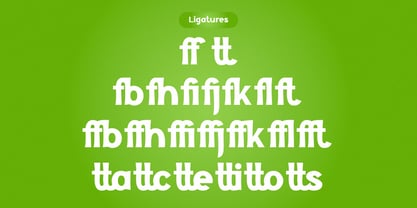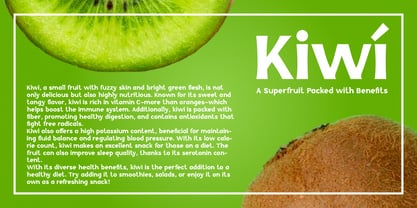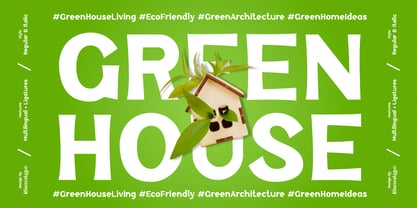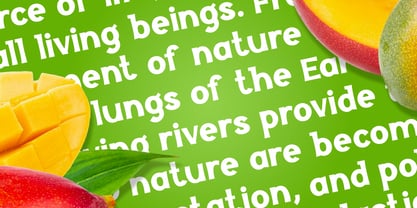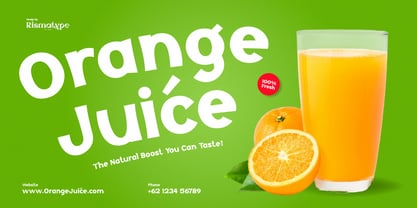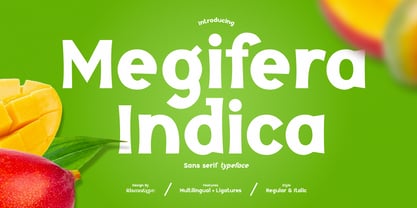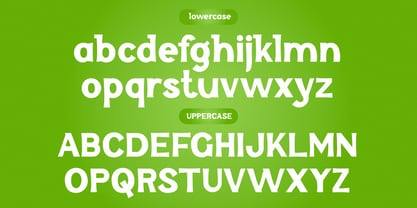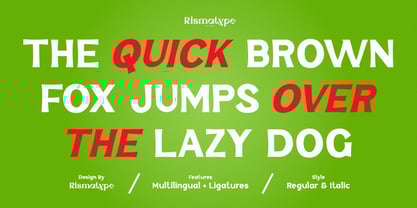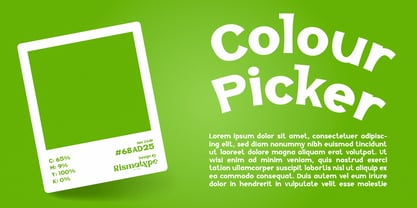
Megifera Indica
by Risma Type
The Megifera Indica Font Family was designed by Risma Mulyasari and published by Risma Type. Megifera Indica contains 2 styles and family package options. More about this family
Megifera Indica is a modern sans serif font designed with the perfect balance between simplicity and elegance. Available in two variants, Regular and Italic, this font is ideal for a variety of design applications, from branding, editorial design, to clean and professional digital displays. With its bold lines and sleek letterforms, Megifera Indica gives a contemporary and easy-to-read impression, perfect for creating a minimalist yet eye-catching impression. A great choice for logos, headlines, and design projects that prioritize clarity and visual appeal.